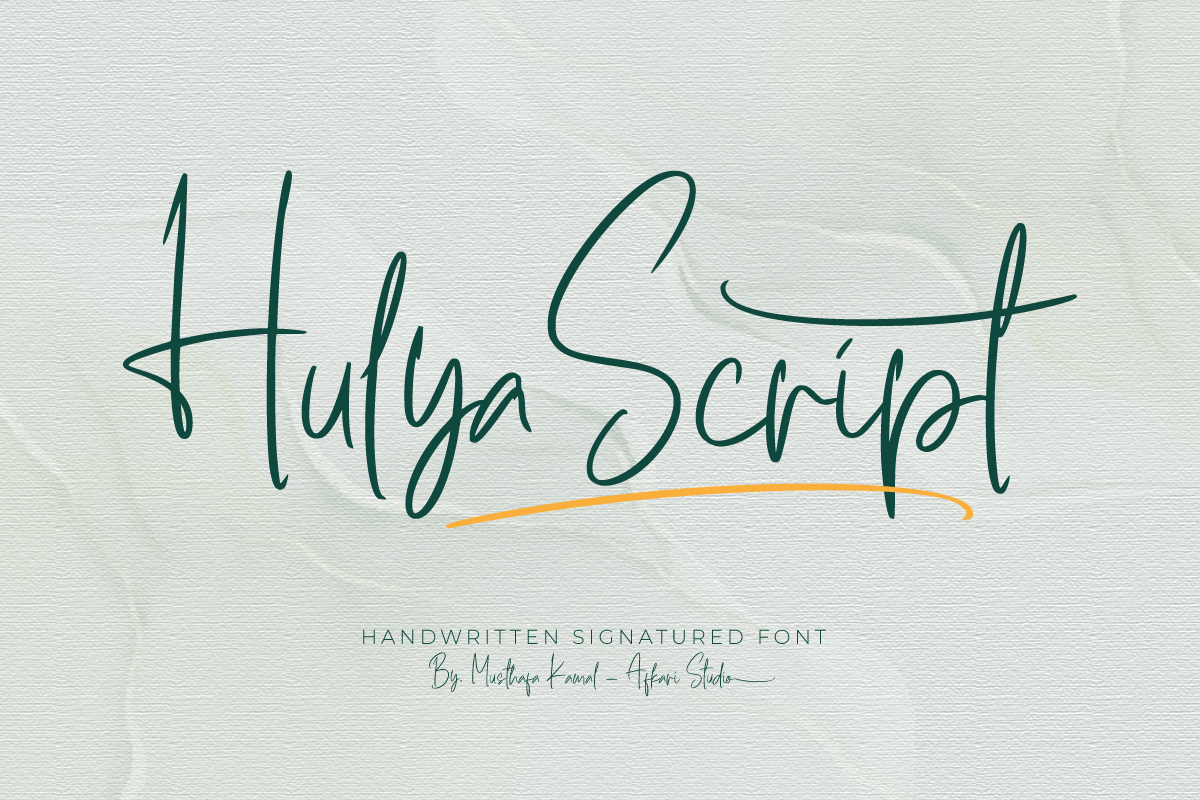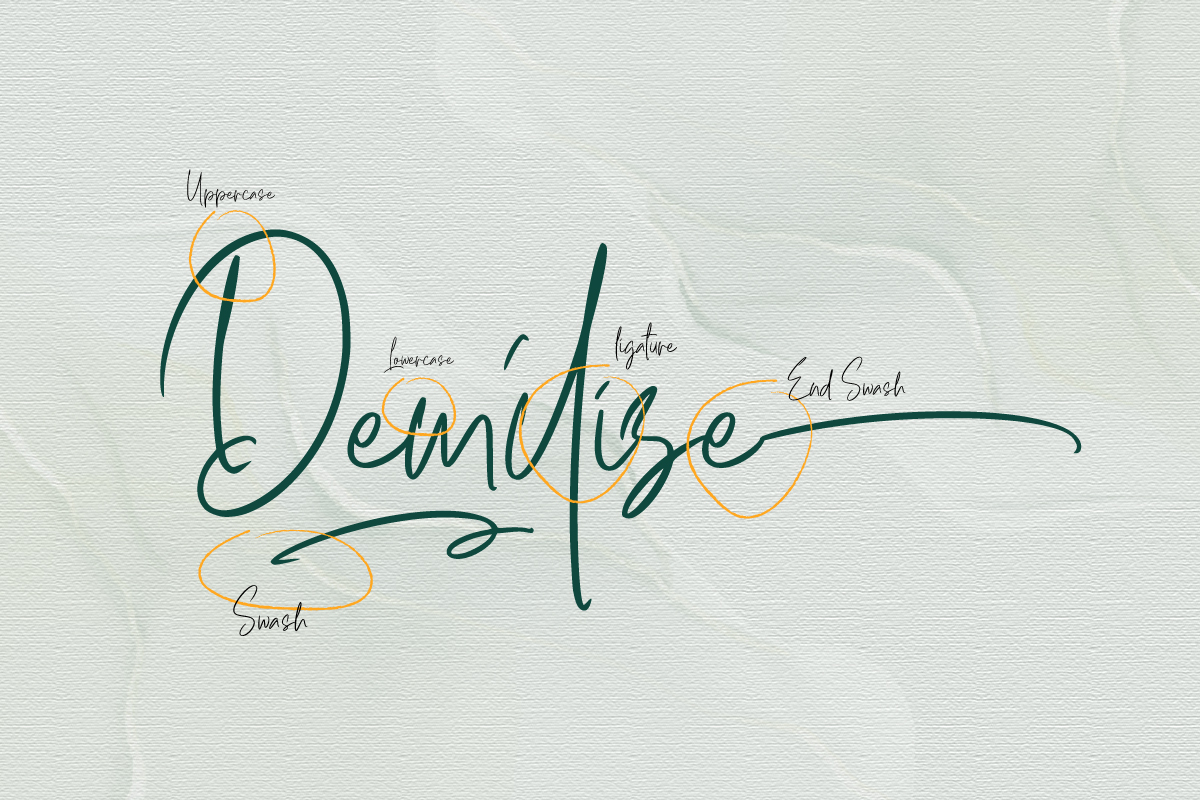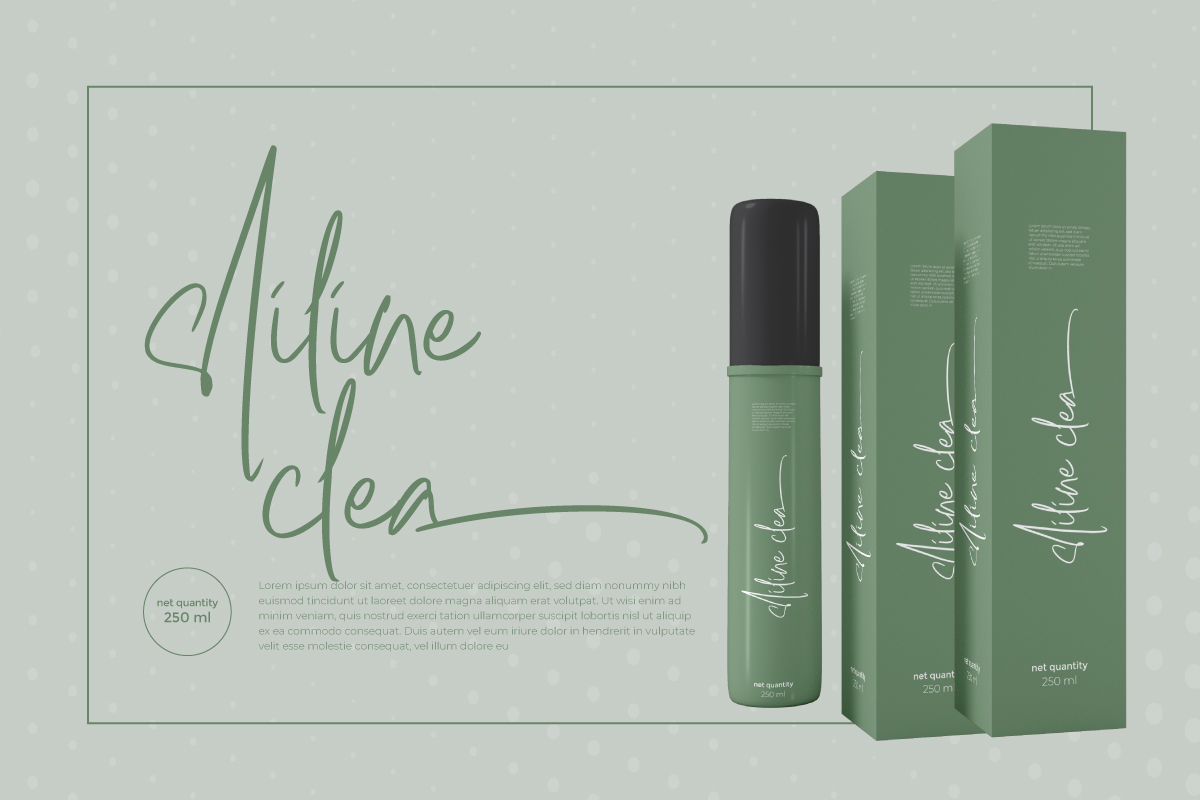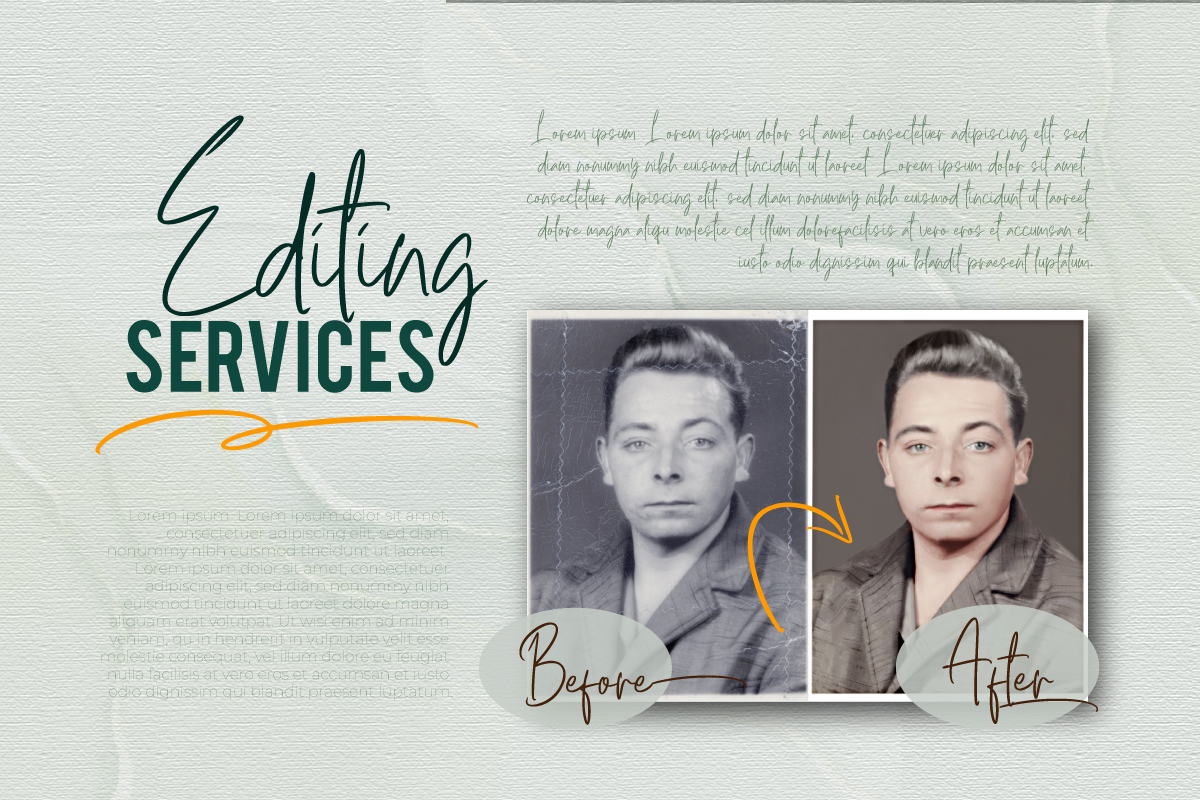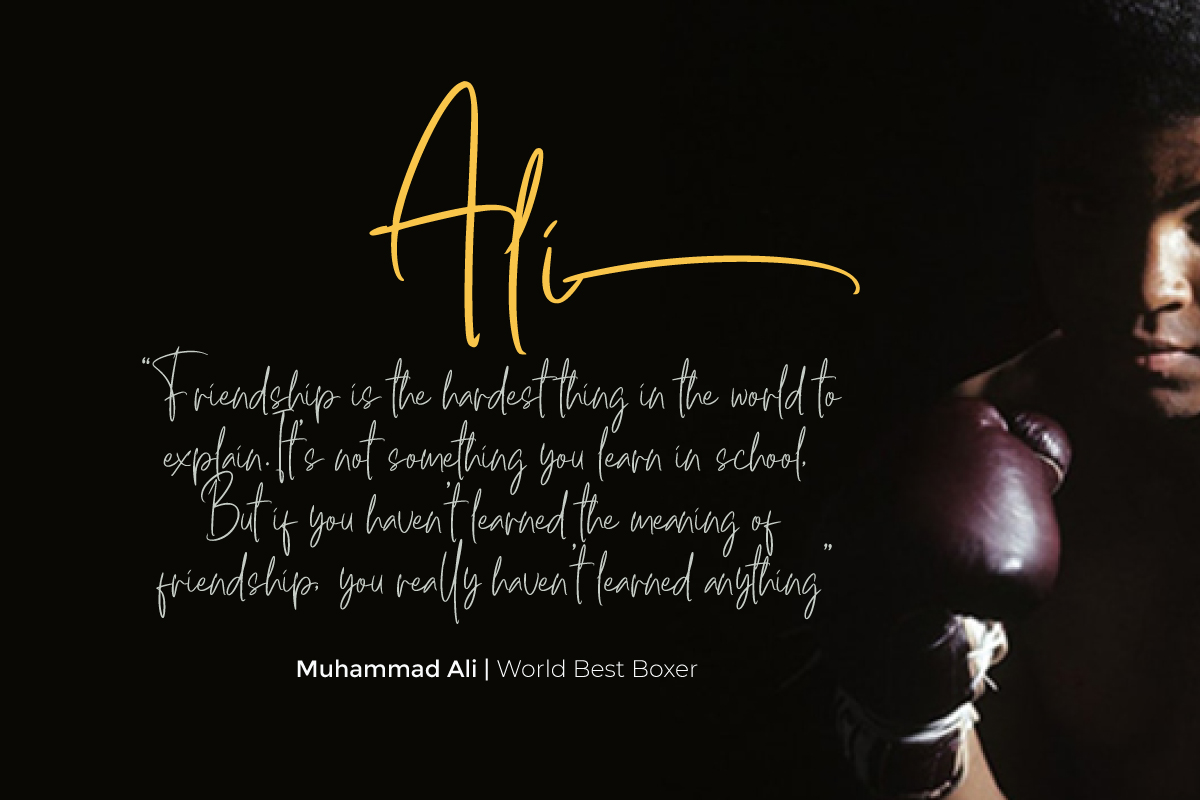
Hulya Script Font
It’s a Signature Handwriting Font script that makes with natural line handwriting. This font is suitable for any branding of your design needs, wedding invitation, romantic project, studio brand, logo, invitations, social media posts, clothing, invitation, poster, cafe/resto sign and others.